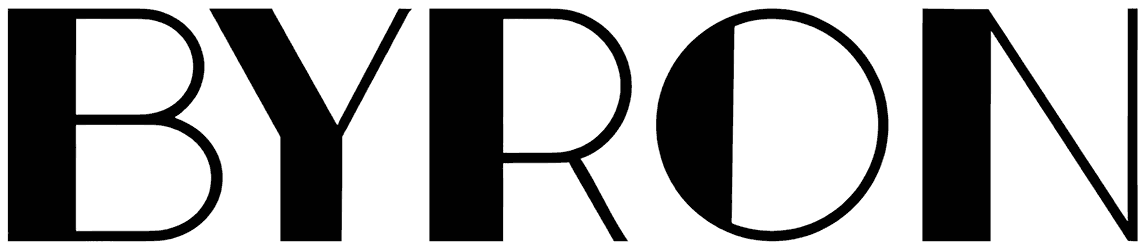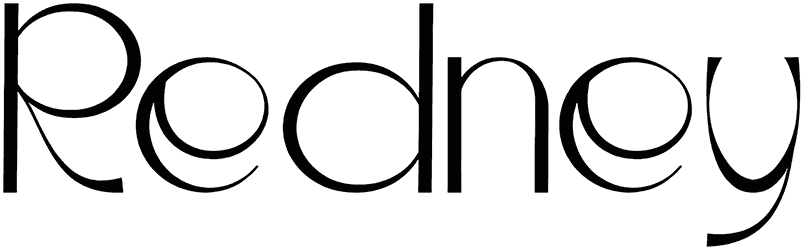
The Mezirane Font
Create a naive and at the same time modern area with The Mezirane for your next design. This bold font doesn’t include most lowercase and numbers, and some of the uppercase has two series with diverse details. This sans serif font will lay out your projects, such as logos, posters, covers, backgrounds, and more, as a design that catches everyone’s attention.